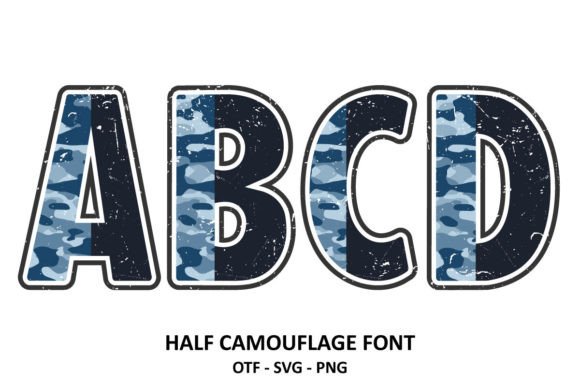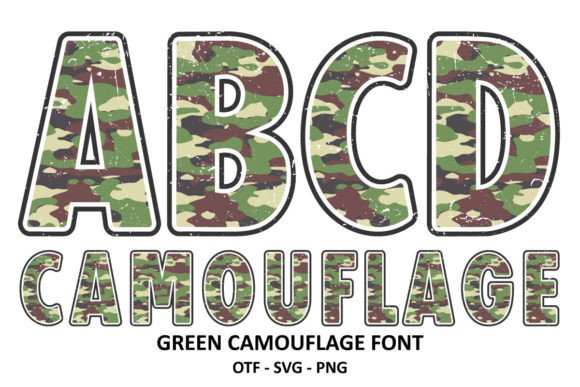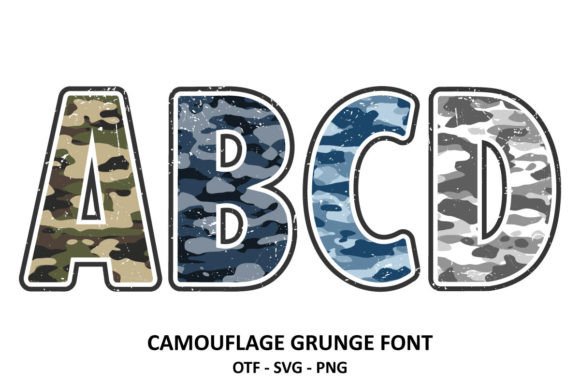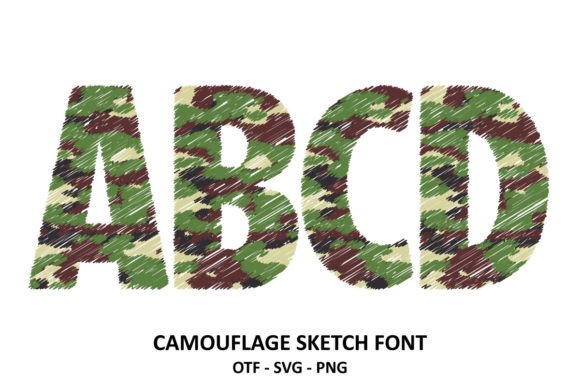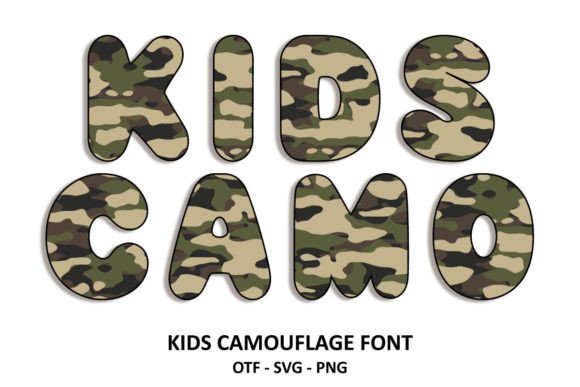
Unleash Your Creativity with the Camouflage Bundle Font
Are you tired of using the same old fonts in your designs? Look no further! The Camouflage Bundle Font is here to take your creative projects to the next level. This exciting bundle gathers 6 eye-catching camouflage-style fonts that are sure to make your designs stand out from the crowd.
What’s Included in the Bundle?
These unique fonts are perfect for a multitude of creative projects, including:
Why Choose the Camouflage Bundle Font?
With the Camouflage Bundle Font, you’ll get:
- 6 unique camouflage-style fonts to add a touch of edginess to your designs
- Endless design possibilities for various creative projects
Tips and Tricks for Using the Camouflage Bundle Font
The Camouflage Bundle Font is a must-have for designers, crafters, and DIY enthusiasts looking to add a touch of camouflage style to their creative projects. With its unique fonts, bonus files, and compatibility with popular design software, this bundle is sure to take your designs to the next level. So why wait? Get your Camouflage Bundle Font today and start creating!